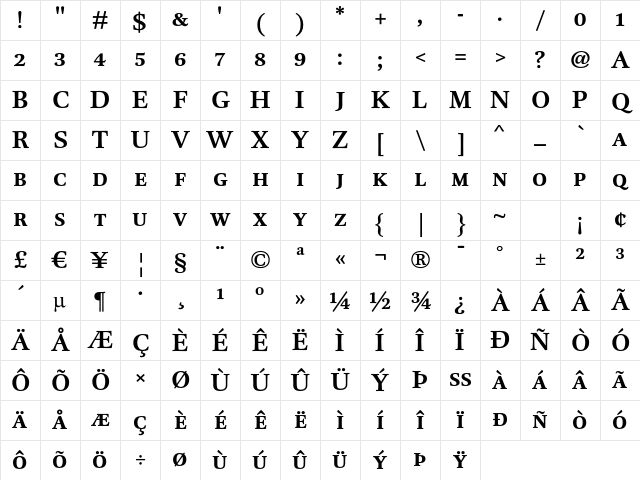
Complete DTLUnicoT CapsBold Regular glyph index. Displaying only characters natively supported by DTLUnicoT CapsBold Regular font.
DTLUnicoT CapsBold is a composed and adaptable typeface that performs quietly and consistently across a wide range of design contexts. Its bold stroke weight gives it real presence on the page.
Who designed the DTLUnicoT CapsBold Regular font?
This font was published by Dutch Type Library. Check the technical specs section for copyright and designer details.